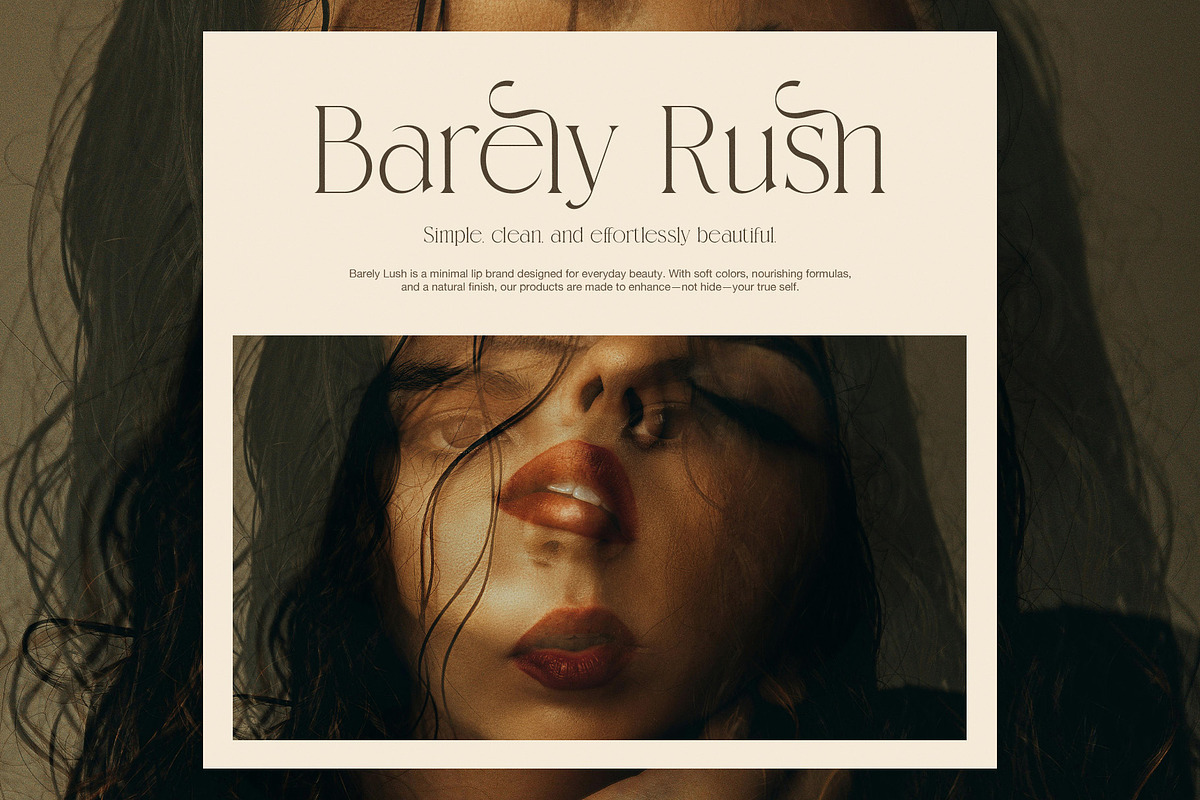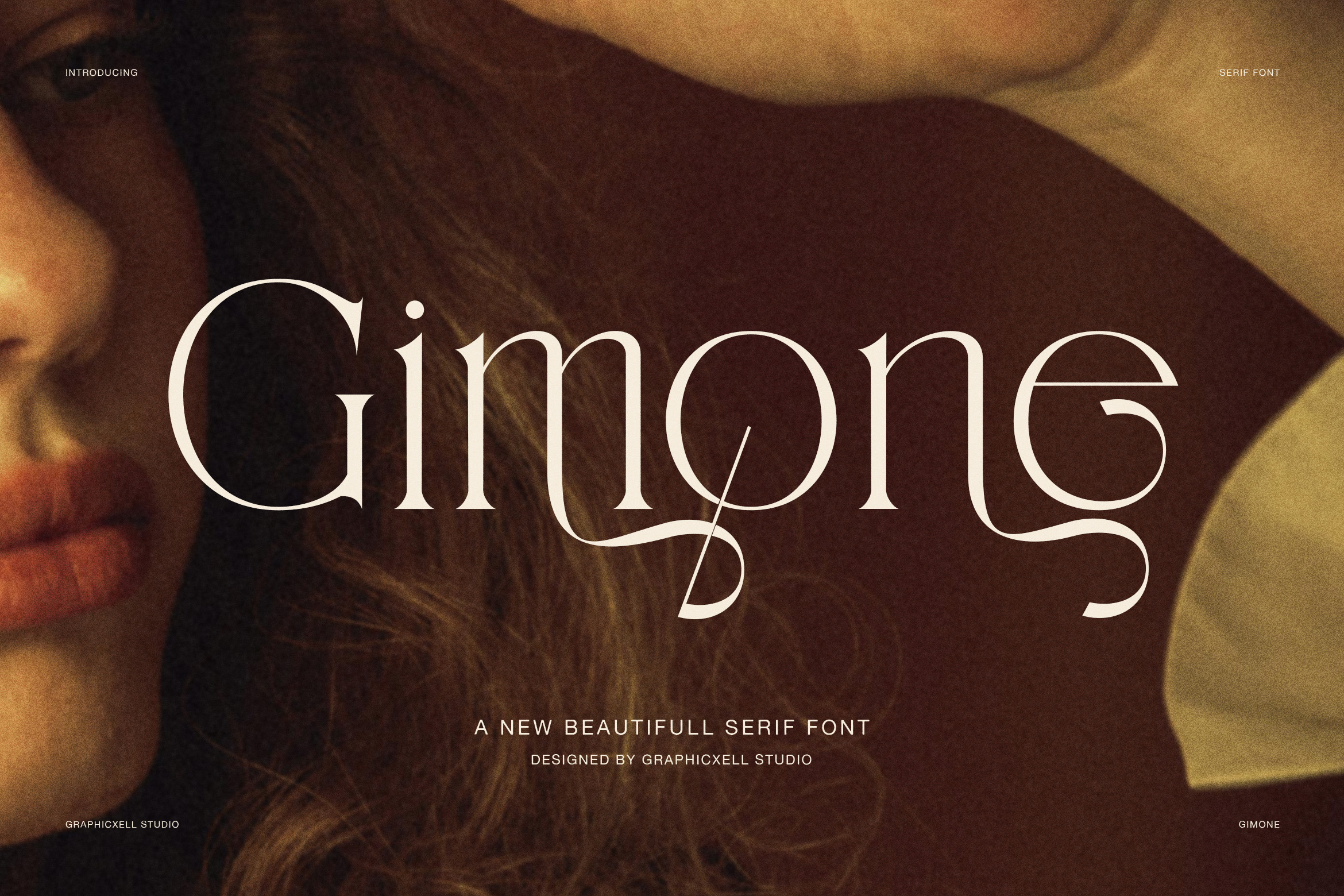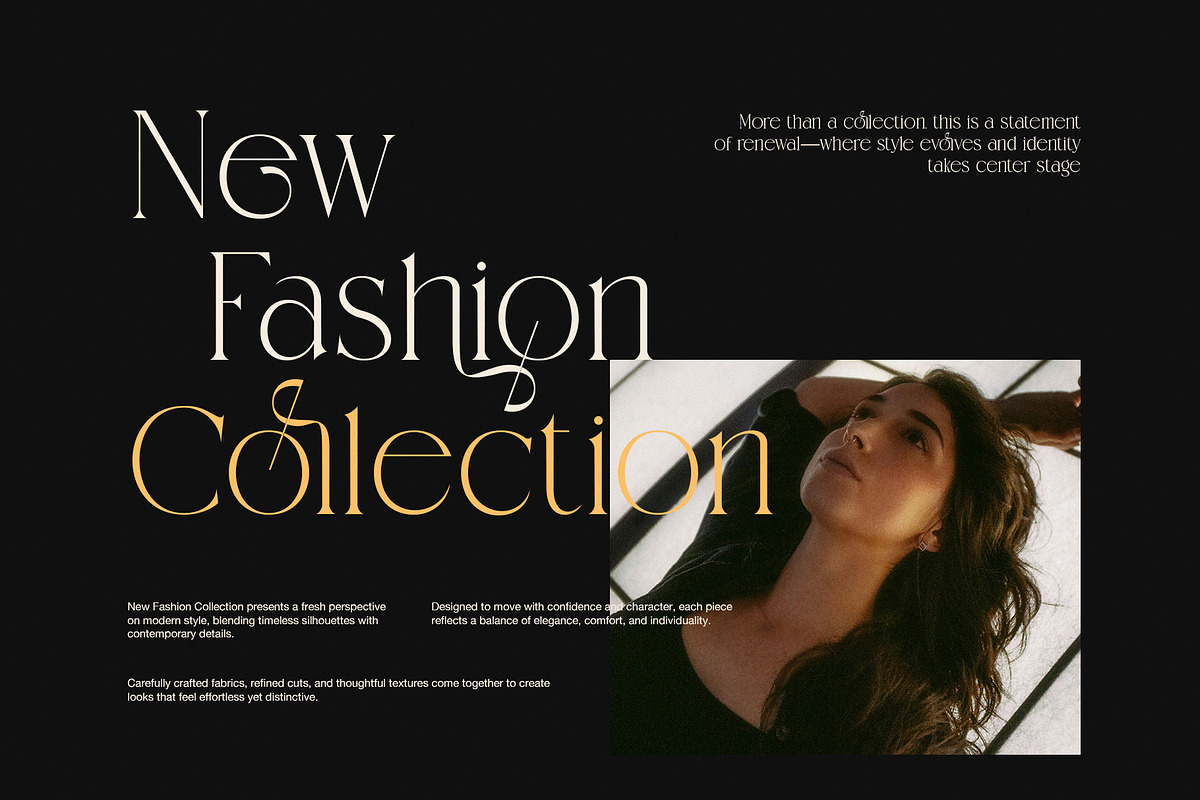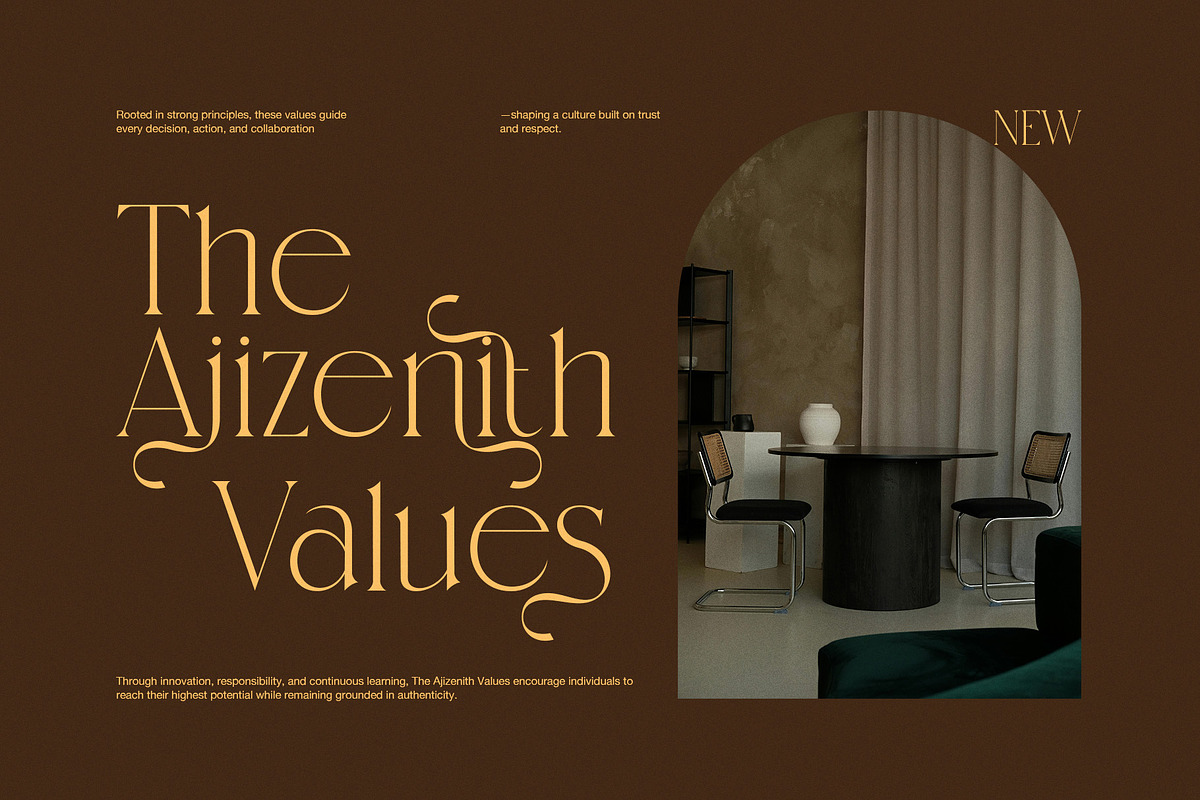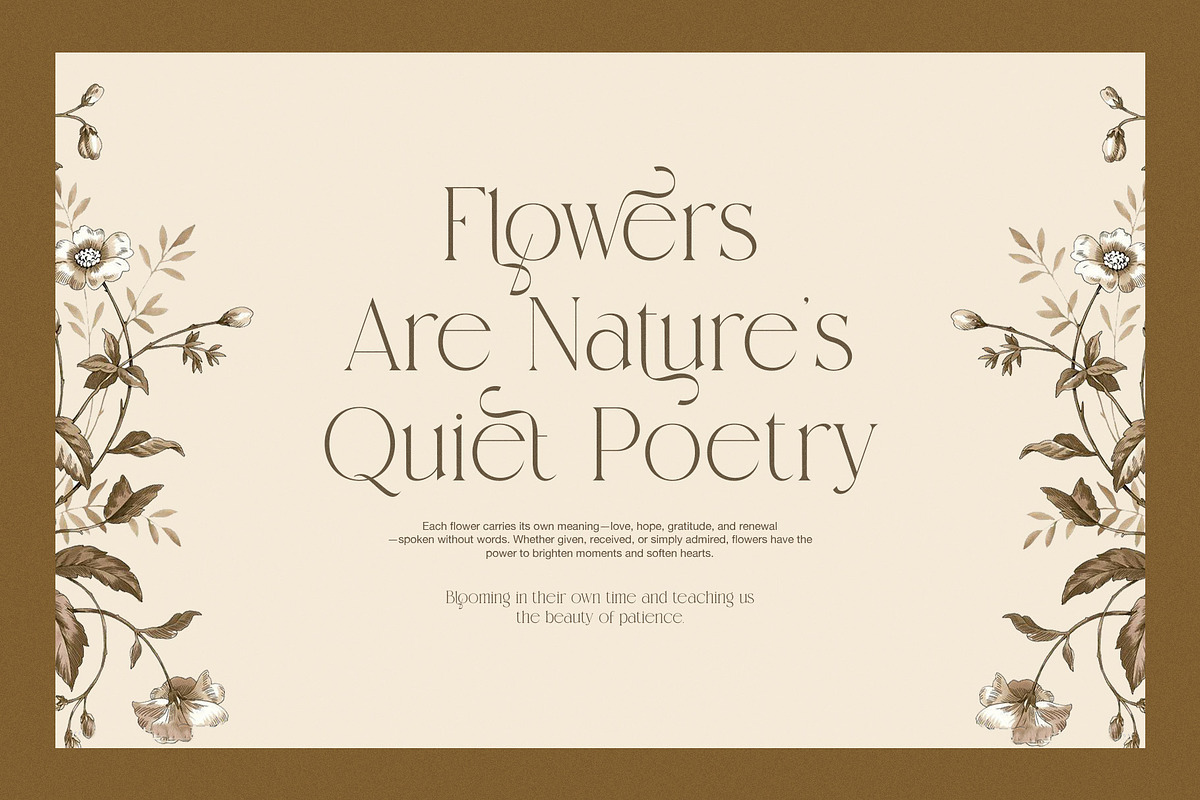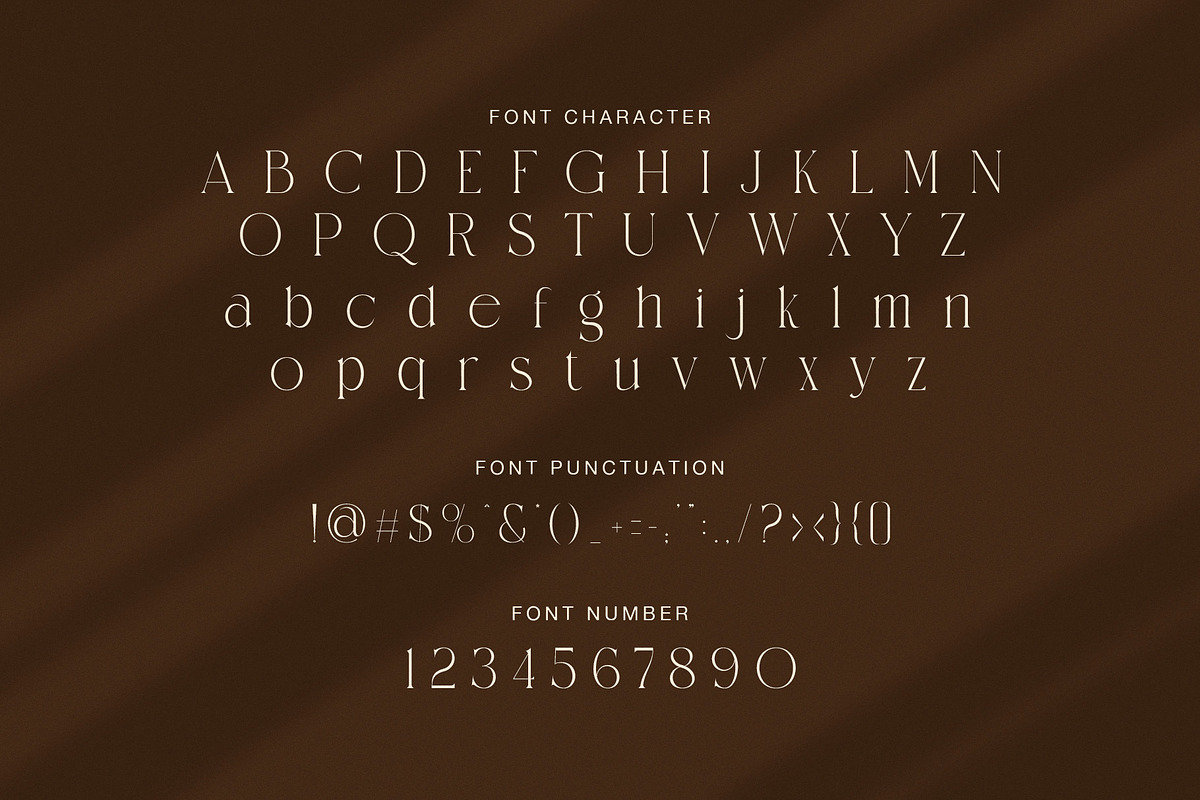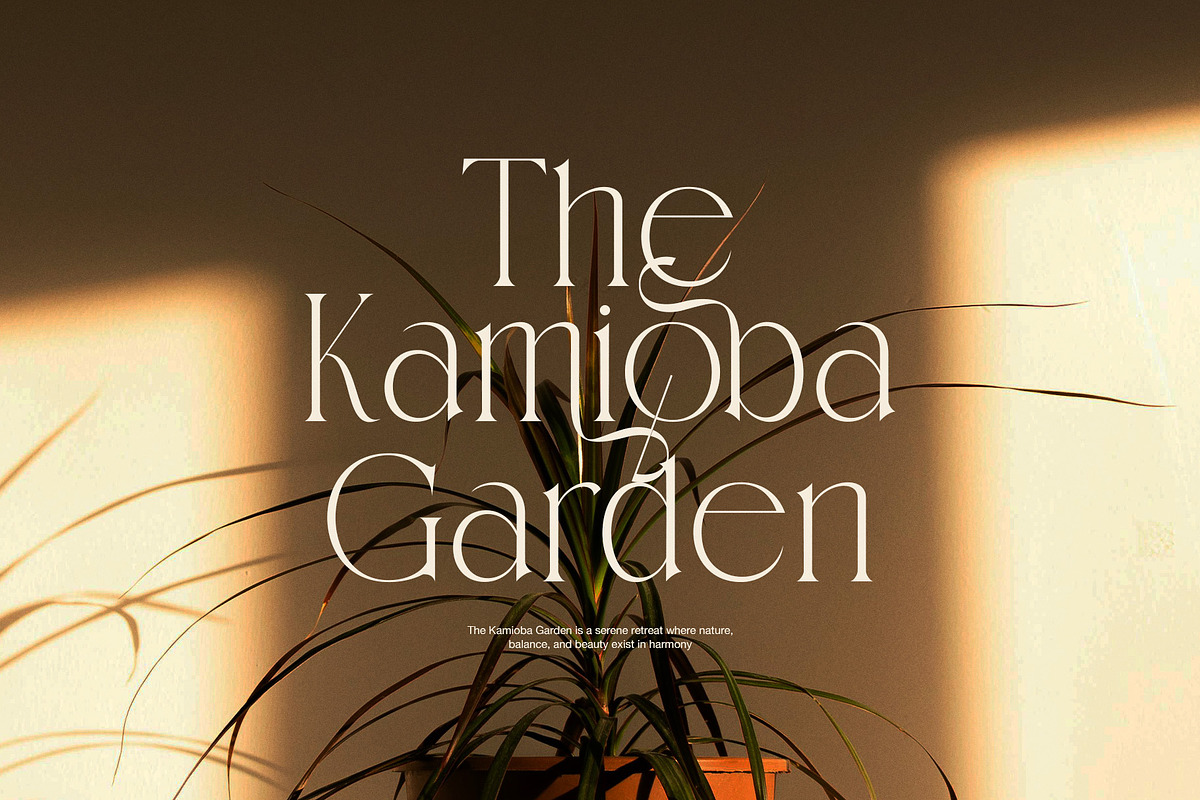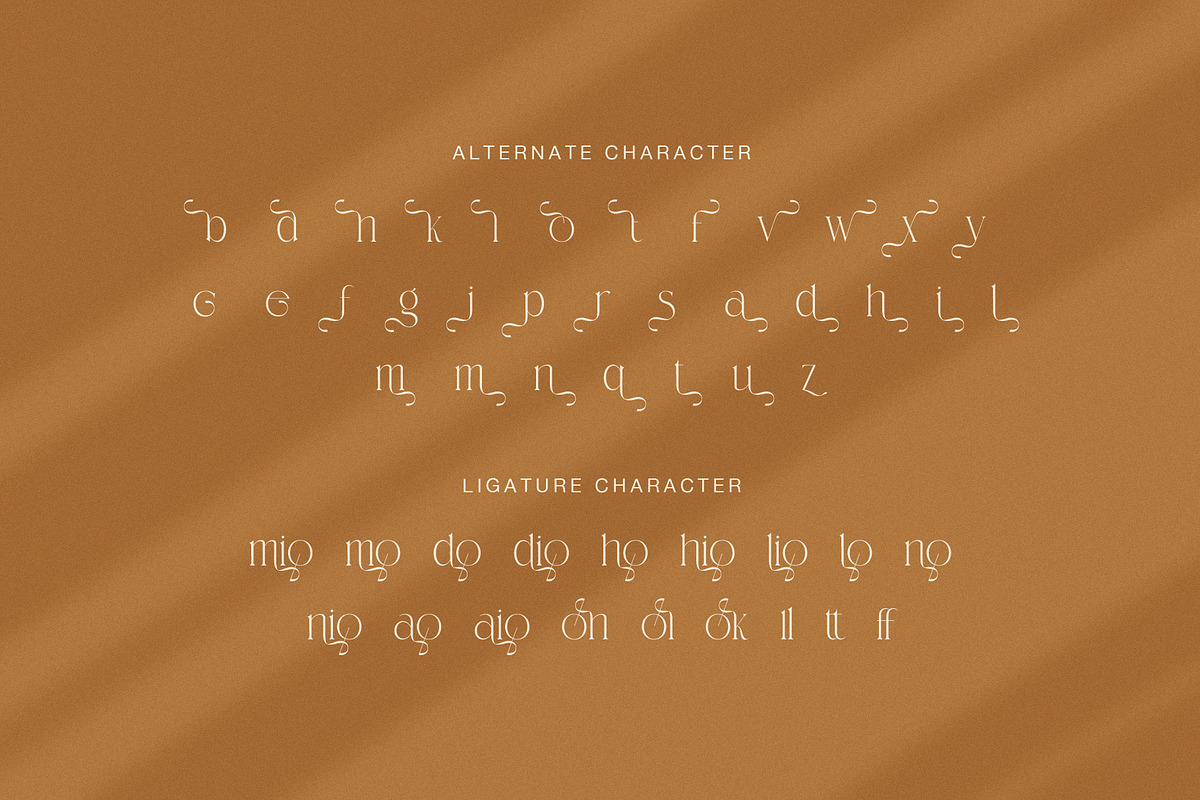
Gimone Elegant Serif Display Font
Gimone is an elegant serif display font created to express beauty, emotion, and refined character. Inspired by editorial design and modern luxury aesthetics, this font combines graceful curves with confident serif structures. As a result, Gimone feels timeless while still appearing fresh and expressive across contemporary projects.
This serif font features smooth contrast, delicate terminals, and artistic details that enhance visual flow. Moreover, the letterforms create a calm rhythm that works beautifully in headlines and branding. Because Gimone includes stylish alternates and carefully crafted ligatures, designers can shape typography that feels distinctive and personal.
Gimone suits a wide range of premium design needs. Designers often choose it for fashion editorials, beauty branding, and lifestyle campaigns. In addition, the font works perfectly for wedding invitations, botanical designs, luxury packaging, and interior presentations. Its elegant personality supports both minimalist layouts and richly styled compositions.
Elegant serif display style with refined contrast
Decorative alternate characters
Smooth ligatures for expressive typography
Balanced uppercase and lowercase forms
Clean punctuation and elegant numerals
Furthermore, Gimone offers flexibility across creative applications. The uppercase letters deliver confidence and structure, while the lowercase characters introduce softness and warmth. Therefore, designers can build clear hierarchy without losing harmony. At large sizes, the font commands attention, yet it always maintains clarity and elegance.
Gimone helps designers tell stories through typography. Each letter carries thoughtful proportions and graceful details, which give words an emotional and artistic presence. As a result, the font strengthens visual identity, editorial layouts, and brand storytelling.
In conclusion, Gimone is more than a decorative serif font. It is a refined design tool made for designers who value elegance, expression, and timeless style. If your project requires typography that communicates luxury with emotion, Gimone delivers beauty with confidence.